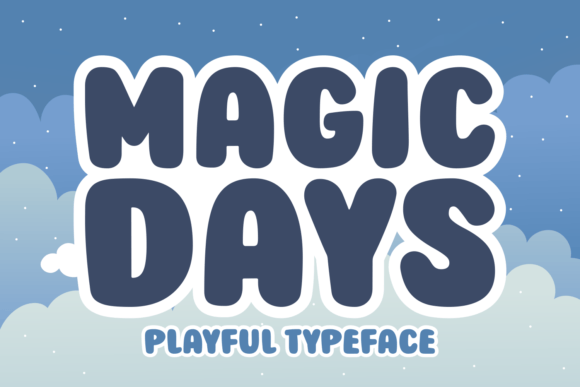
In the realm of typography, where letters dance and words take flight, a font emerges that captivates the eye and ignites the imagination. Magic Days Font, a bold, all-caps display font, stands as a testament to the power of design and the allure of originality.
Sculpted with meticulous precision, Magic Days Font exudes a disarming friendliness that draws you in and holds you captive. Its confident strokes and playful curves evoke a sense of nostalgia, reminiscent of vintage signage and retro-inspired aesthetics. Whether you're a creative professional seeking to elevate your designs or a casual user yearning for a touch of uniqueness, Magic Days Font is your perfect companion.
With its inherent versatility, Magic Days Font effortlessly adapts to a myriad of applications. Unleash your creativity in crafting eye-catching logos that leave a lasting impression, or let your words shine in digital designs that demand attention. Its bold presence commands attention in presentations, transforming ordinary slides into captivating narratives. And when it comes to social media posts, Magic Days Font becomes your secret weapon, turning your messages into visually stunning masterpieces that resonate with your audience.
Magic Days Font is more than just a collection of characters; it's an invitation to embark on a visual odyssey, where your imagination takes center stage. Its bold, all-caps design invites you to make a statement, to convey your message with an unwavering sense of confidence. Whether you're crafting content for magazines, designing digital creations, or captivating your audience on social media, Magic Days Font is your steadfast ally, amplifying your words and turning them into visual spectacles.
As you delve into the depths of Magic Days Font, you'll discover a font that's not just visually appealing but also incredibly user-friendly. Its intuitive design and seamless integration make it a joy to use, allowing you to focus on your creative vision without getting bogged down by technicalities.
So, step into the world of Magic Days Font and let your creativity soar. With its enchanting charm and versatile nature, it's the perfect font to add a touch of magic to your designs and make your words dance off the page. Embrace the Magic Days Font experience today and unlock a world of endless possibilities.